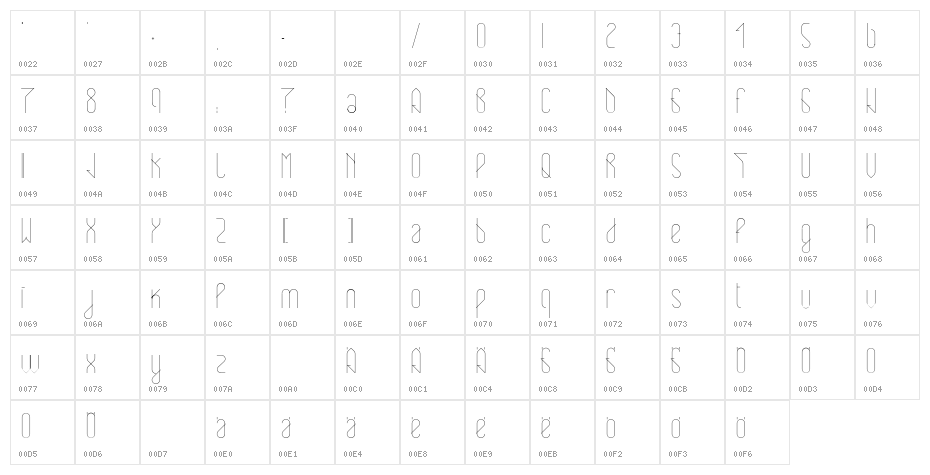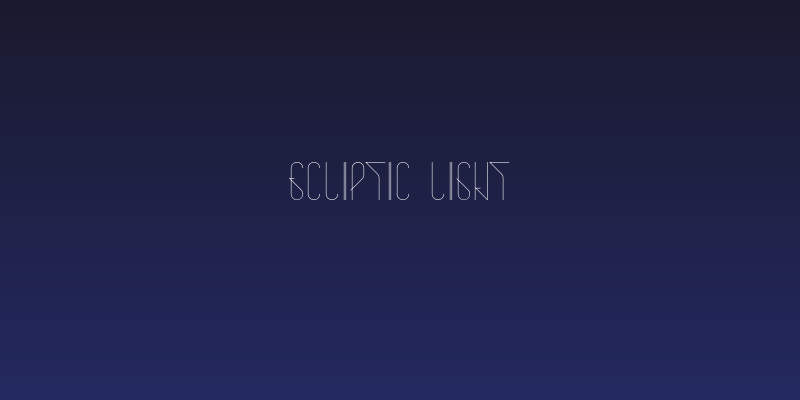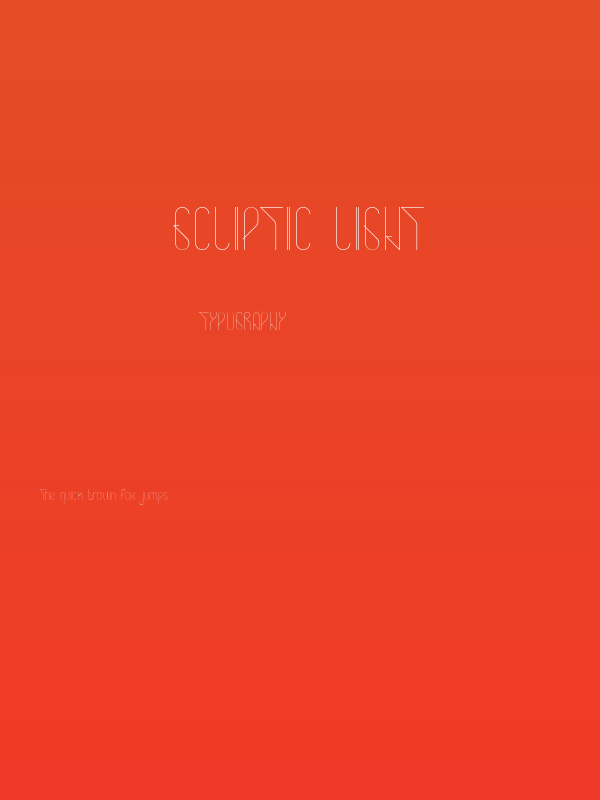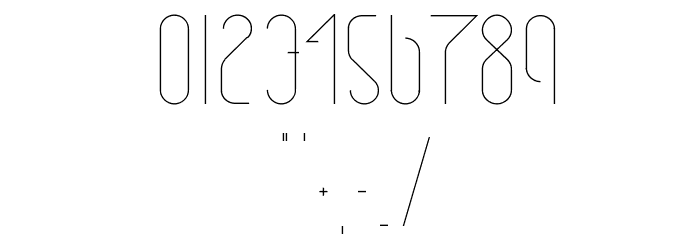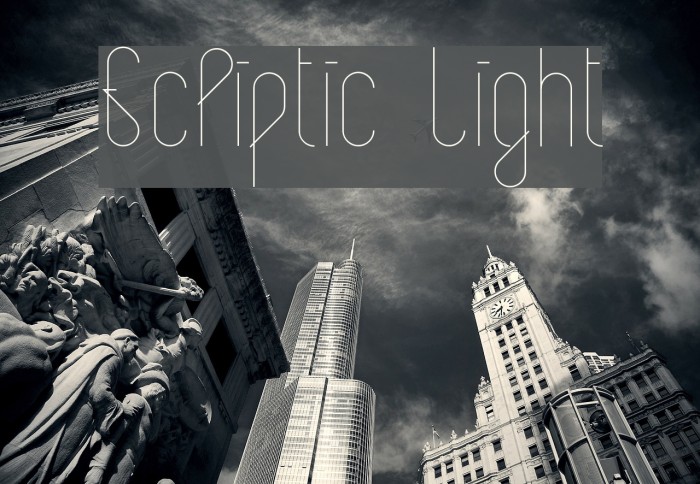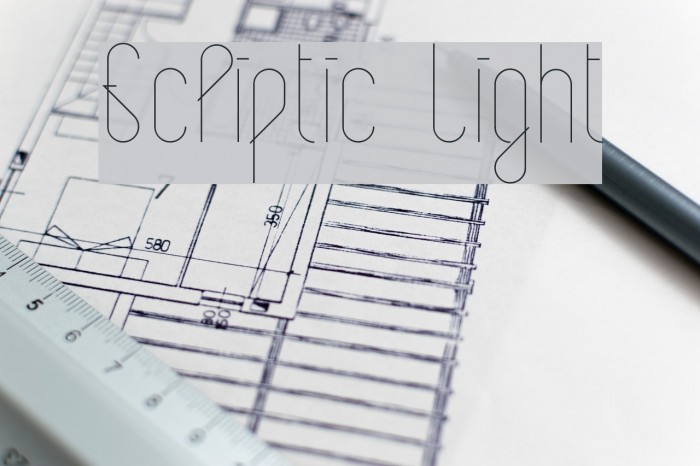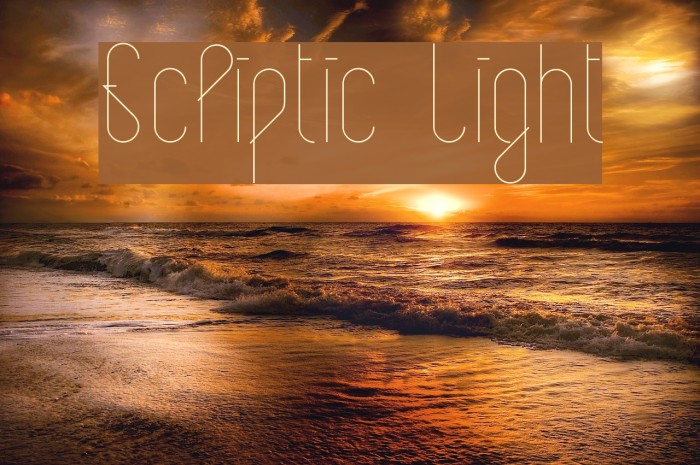
Ecliptic Light Font
Ecliptic Light Description
This font features a sleek and modern design with a geometric flair. The characters are composed of thin, continuous lines that create a sense of elegance and sophistication. Each letter is uniquely crafted with angular and curved elements, giving it a distinct and futuristic appearance. The uppercase and lowercase letters maintain a consistent style, while the numbers and special characters complement the overall aesthetic. The font's minimalistic approach makes it suitable for contemporary design projects, offering a clean and stylish look.
| Proposed Projects | Ideal for branding, tech-related designs, modern posters, and minimalist logos. |